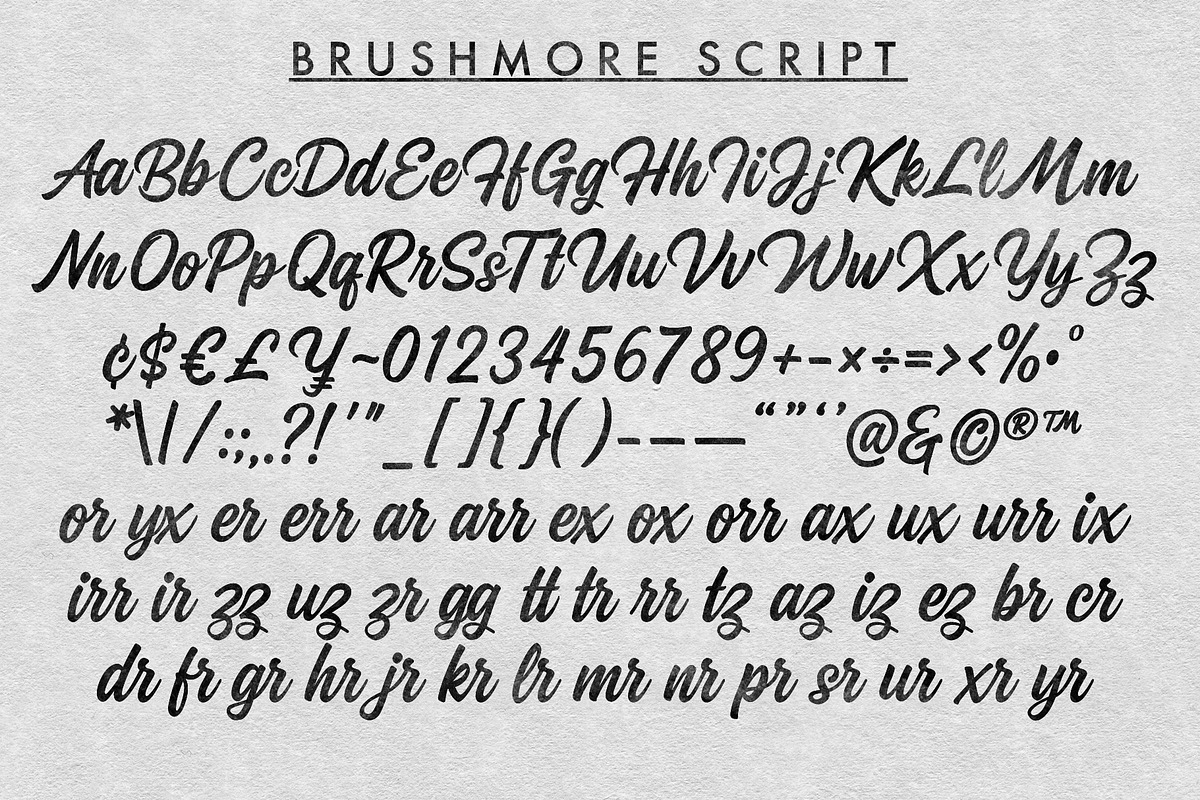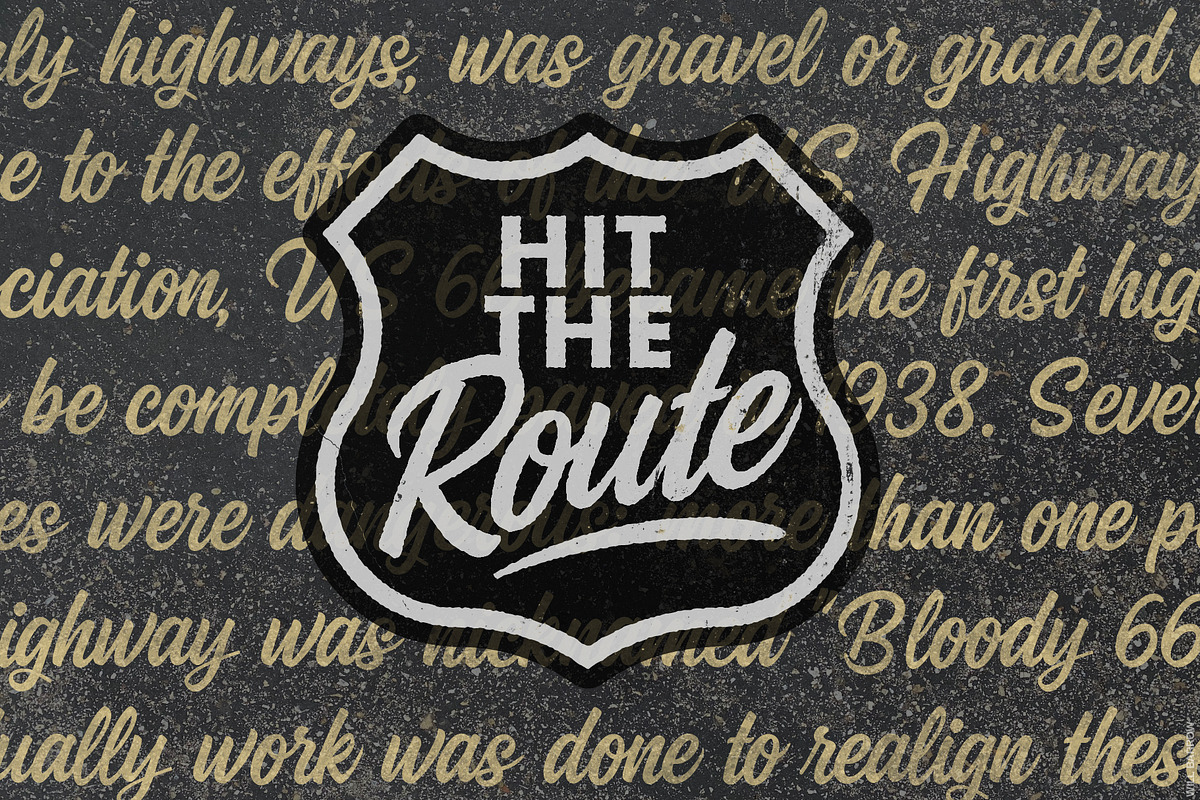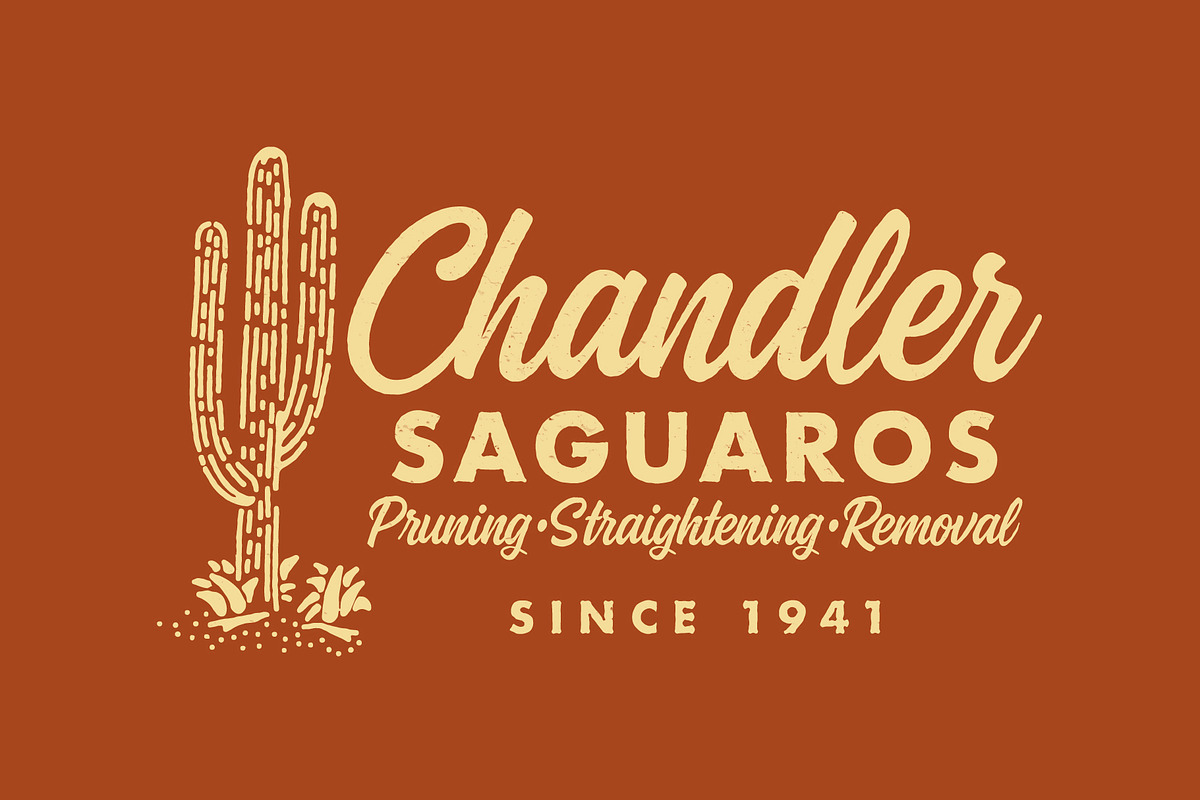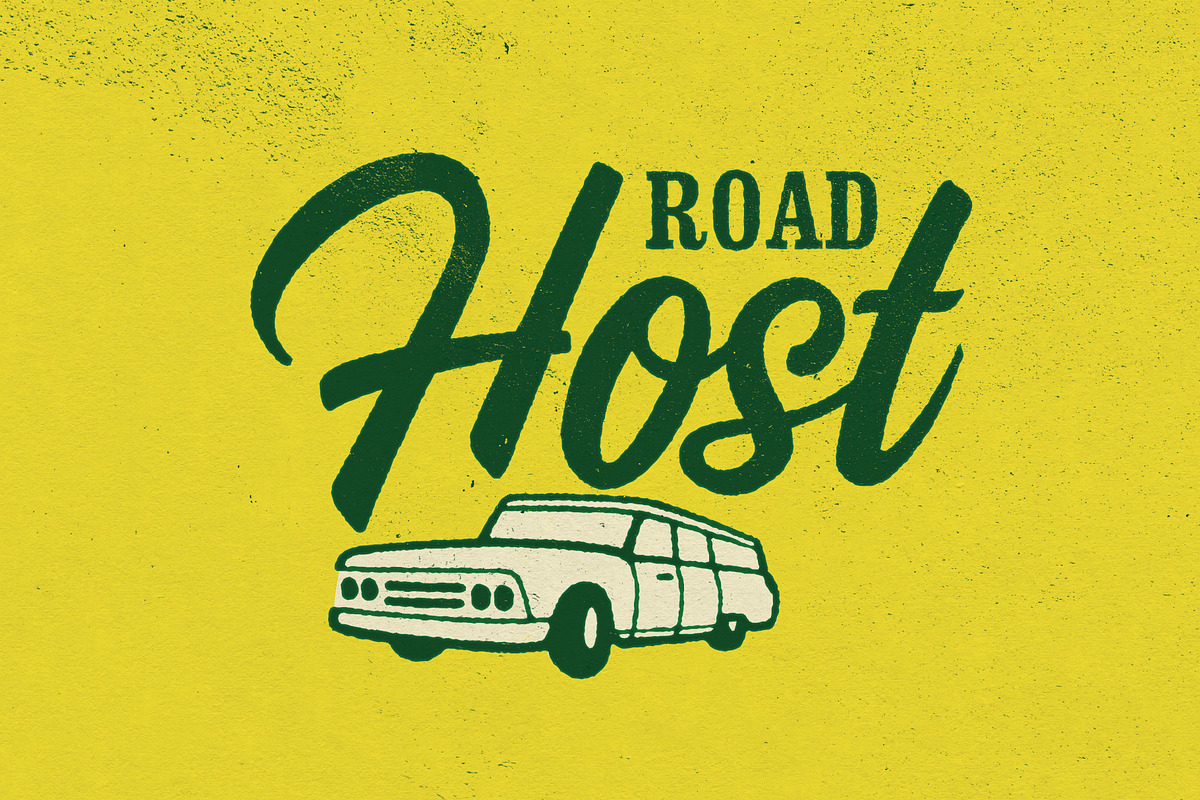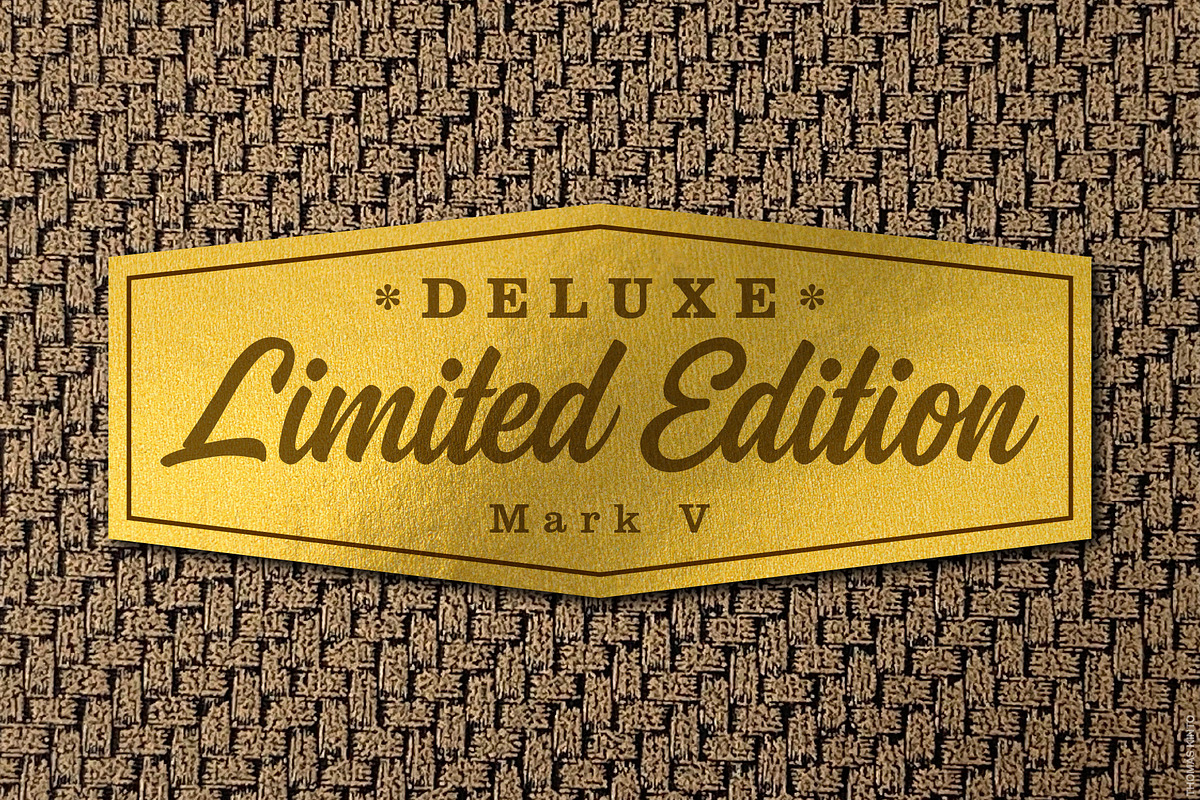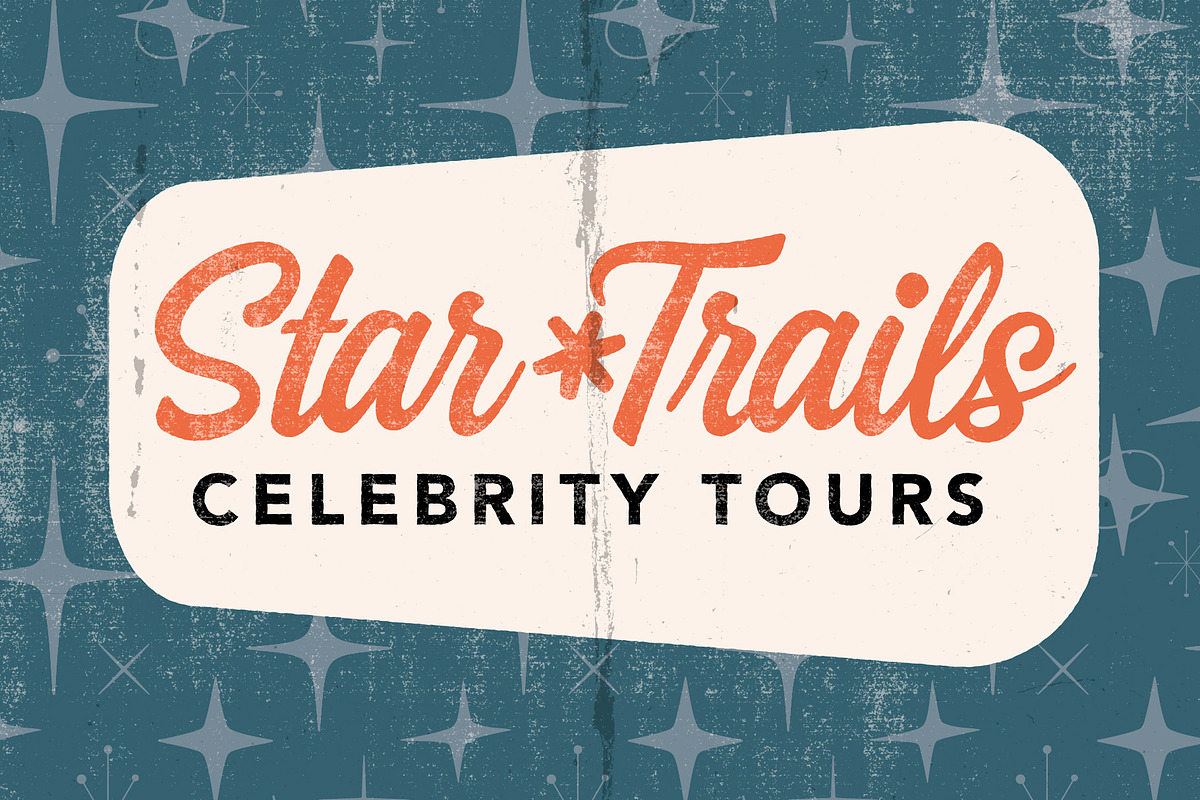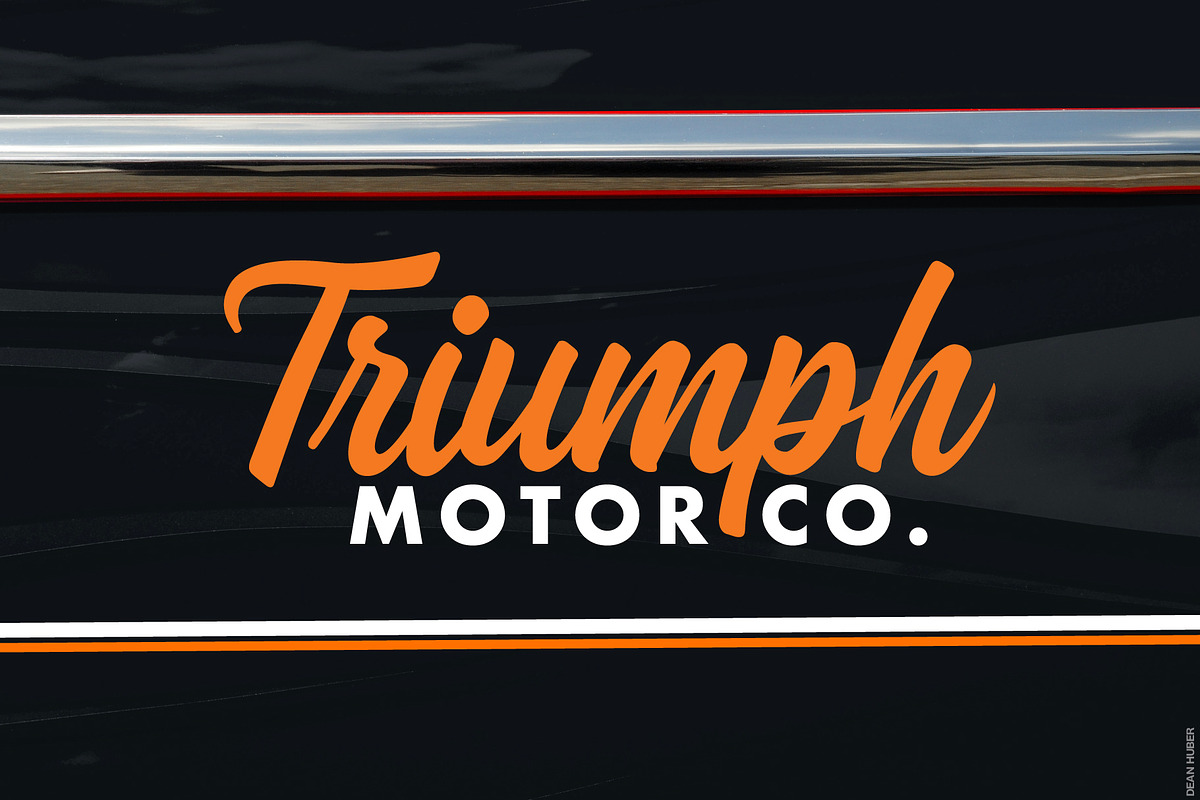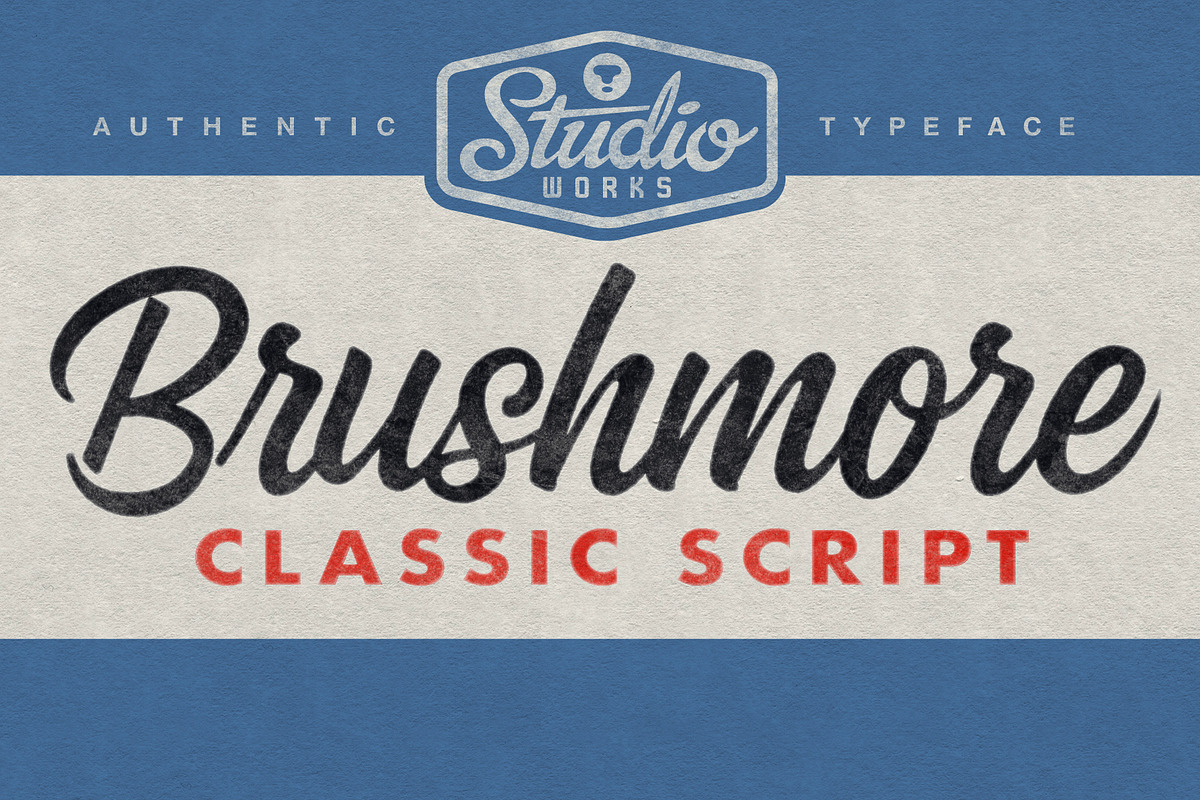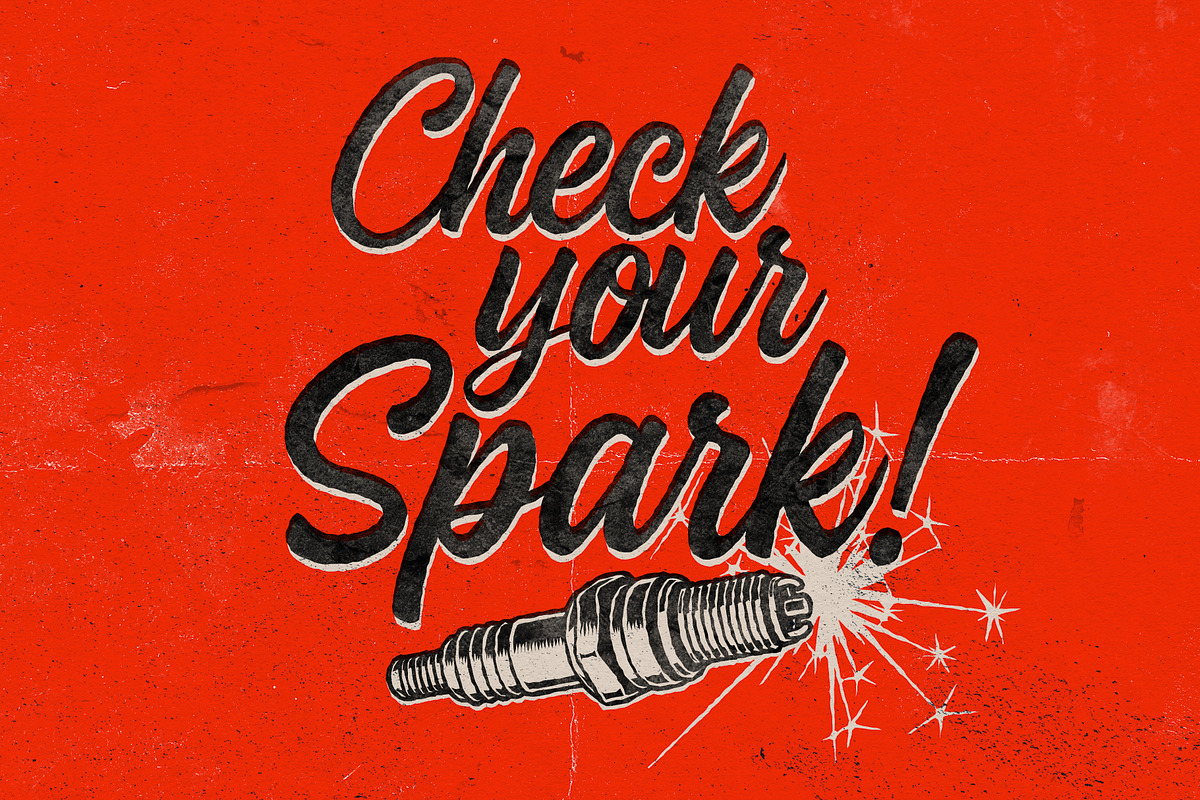
Brushmore | Classic Script
Introducing the timeless beauty of •• B R U S H M O R E •• — a classic American retail script typeface from StudioWorks!
Brushmore was meticulously crafted to portray the handcrafted elegance of brush-inspired design, reminiscent of traditional American signage and vintage storefronts. Its elegant strokes and timeless style is perfect for every design project from retail ads and branding to packaging and invitations. Brushmore breathes life into all your designs effortlessly with charm and a touch of nostalgia. Also included is a collection of standard ligatures to extend the connective flow of Brushmore and improve legibility (thanks to Open Type features).
Brushmore features:
- Upper (A-Z) and lower case (a-z) characters
- Numbers (0-9)
- Standard punctuation and glyphs
- A collection of 42 standard ligatures